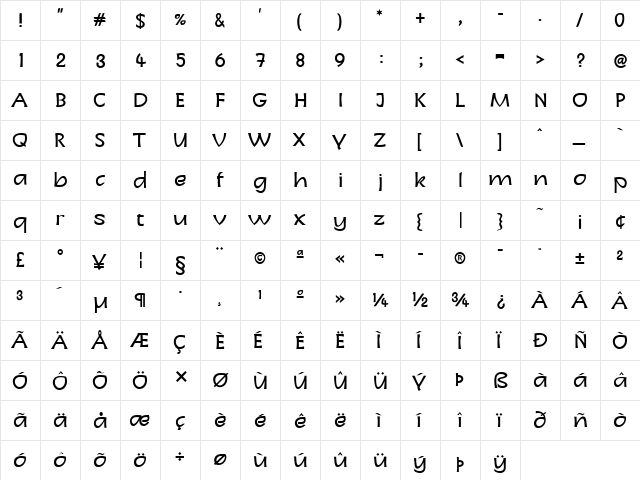
LTCharon Medium Regular Font Preview
LTCharon Medium Regular
Design Context for LTCharon Medium Typeface
LTCharon Medium takes a measured approach to typography — its balanced proportions and neutral character make it a reliable workhorse for both digital and print work.